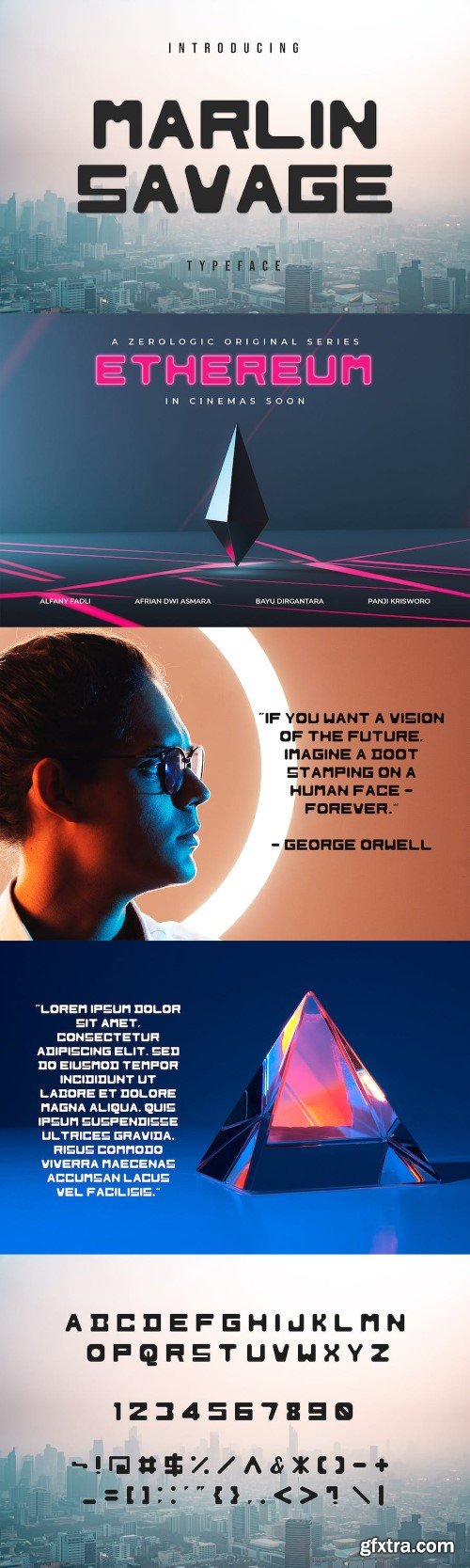
Marshal Savage 优秀字体类型
Marlin Savage is a modern font that we designed with original touch for your needs. This cool font is complete with Uppercase, Lowercase, Numeric & symbols. This very strong and sharp font is perfect for titles, typography, posters, magazines, brochures, packaging, Websites and much more for your design needs, making your designs more cool.